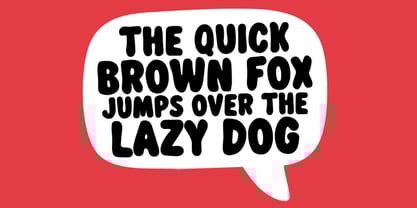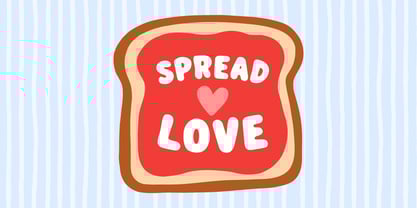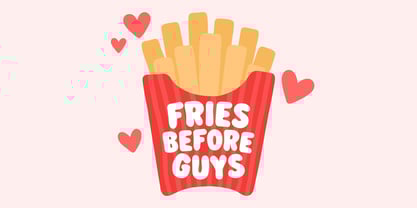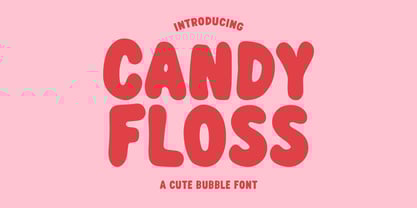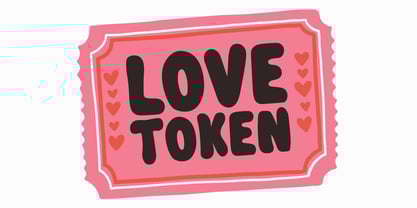
Candy Floss
by Happy Type Club
The Candy Floss Font Family was designed by Isabel Clarke and published by Happy Type Club. Candy Floss contains 1 styles.
Candy Floss is a fun cute bubble retro typeface perfect for any fun quirky design work! This font can be used for anything such as t-shirt designs, phone cases, greeting cards, invitations, mugs and so much more! Get creative!
Designers: Isabel Clarke
Publisher: Happy Type Club
Foundry: Happy Type Club